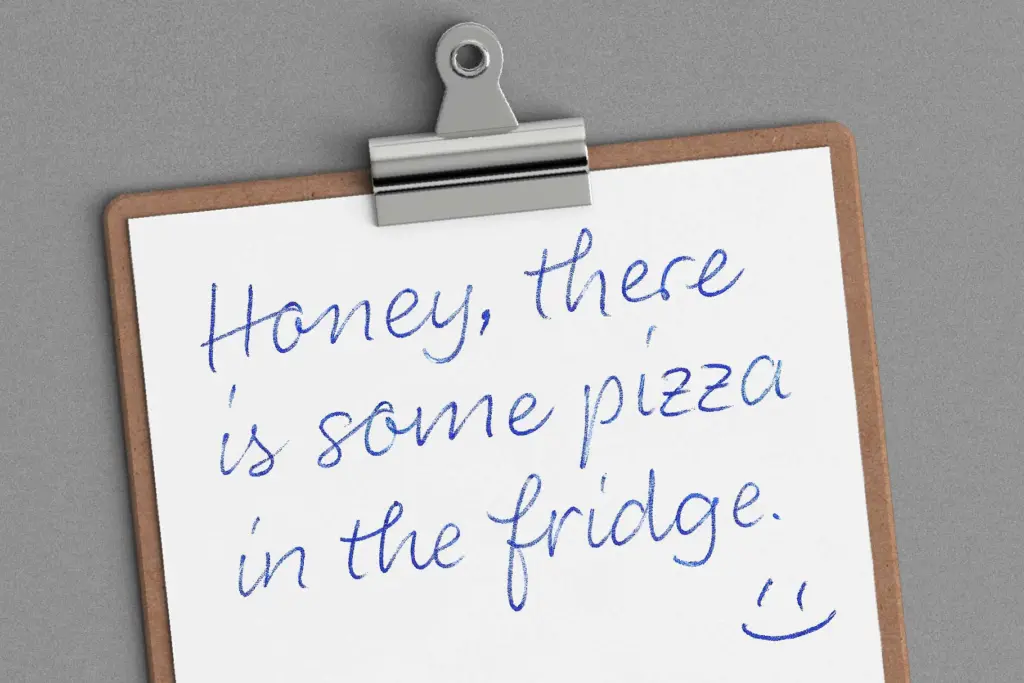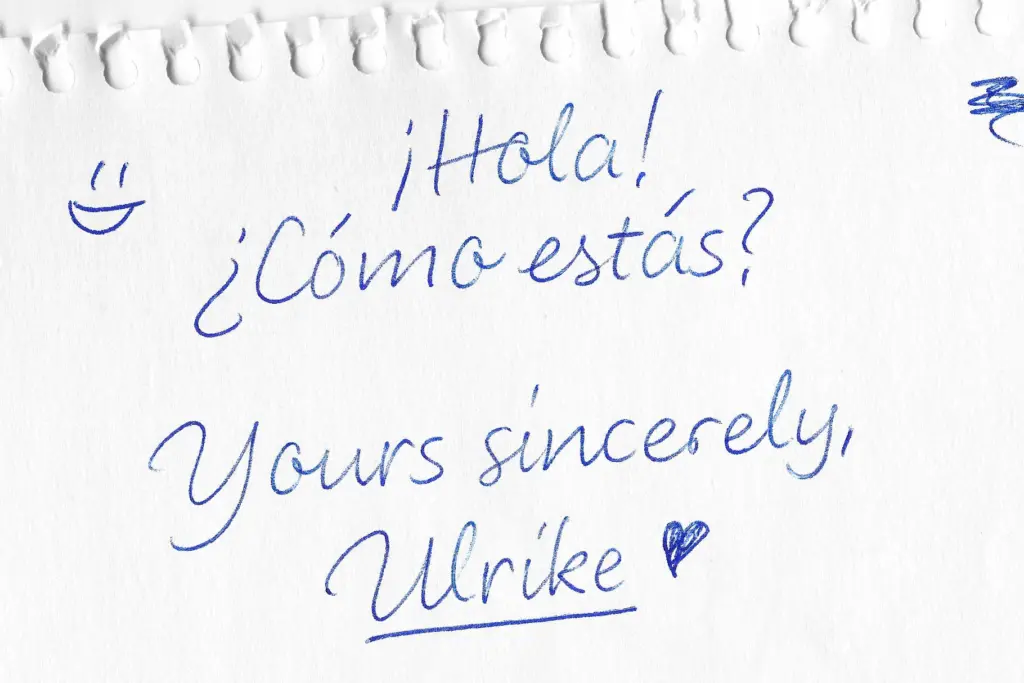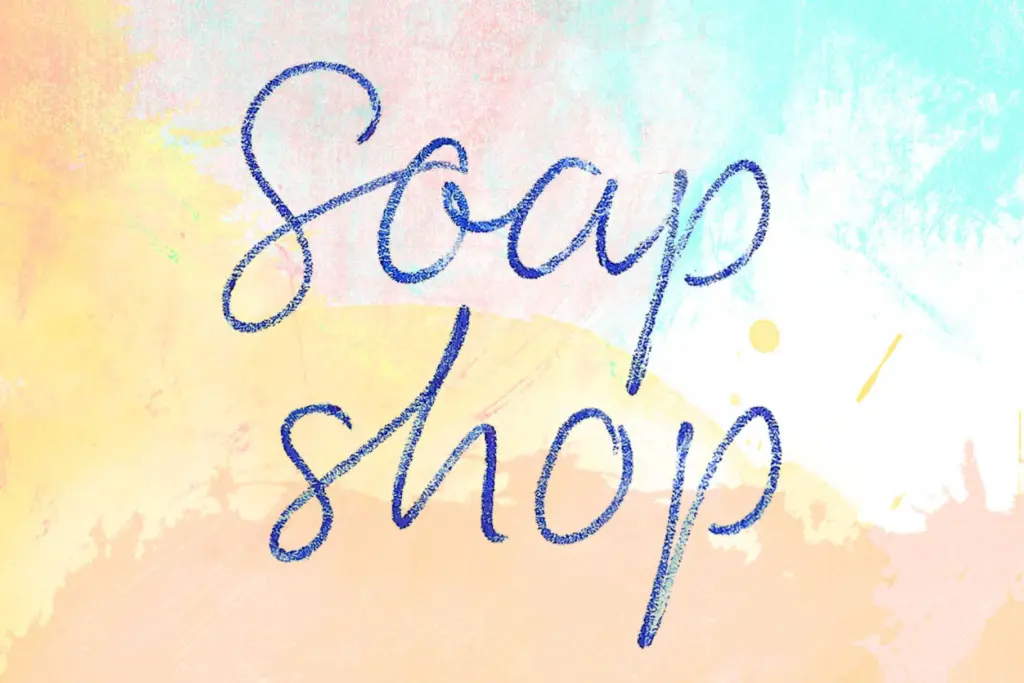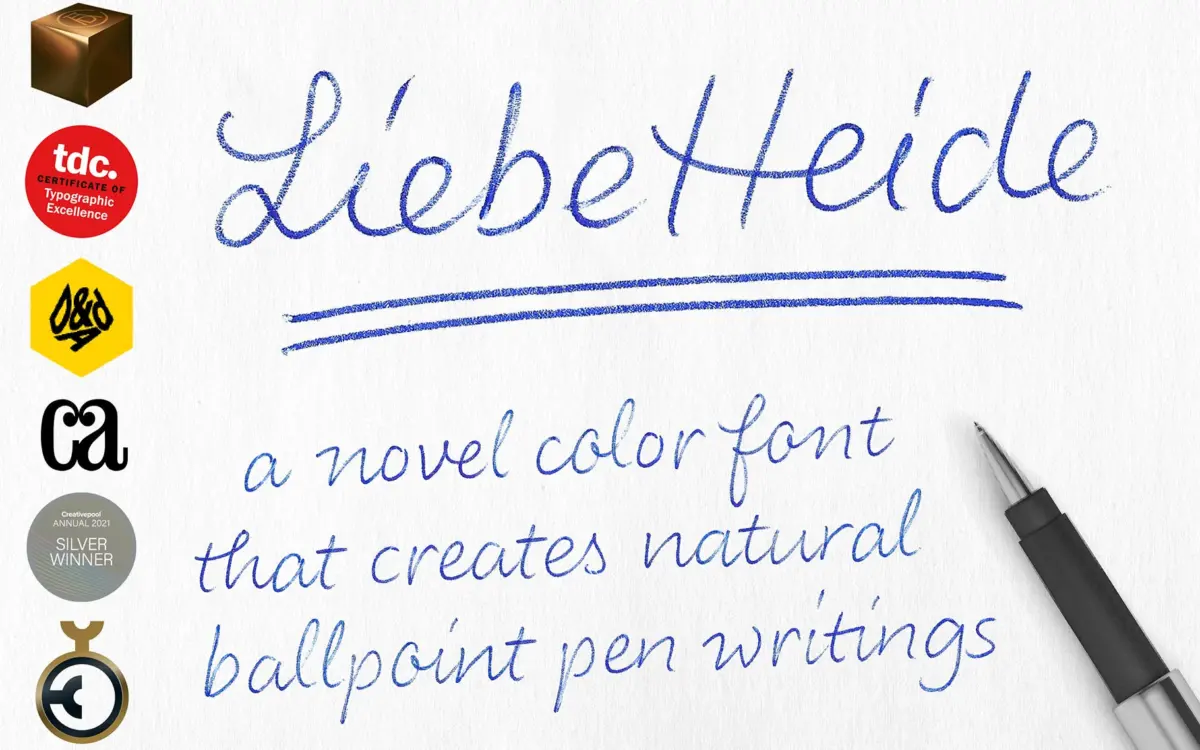
LiebeHeide is not drawn in the usual sense — it is scanned. The letterforms come from high-resolution digitized ballpoint pen lettering, and that origin shows in every stroke. You get the slight pressure changes, the faint texture of ink meeting paper, the small inconsistencies that no vector script convincingly fakes. It reads as handwriting because it is, more or less, a photograph of handwriting.
This is a color font built on bitmap images rather than outlines, which is a different animal from the OpenType-SVG color fonts most designers are used to. It changes what you can and can’t do with it, and that trade-off runs through the whole review.
The glyph count is generous — close to 500 — and a lot of that budget goes into alternate letterforms and ligatures designed to break up repetition, which matters enormously in a script meant to pass as real handwriting. Doodles, underlines (single and double), strikethroughs, and self-assembling symbols round it out: type <3 and get a heart, :-) becomes a smiley, arrow combinations resolve into actual arrows. It's a genuinely deep set for a handwriting font, and the automatic assembly means you don't have to hunt through a glyph panel to find them.
The catch is the bitmap construction. Colour cannot be changed inside a text editor — you’re locked to whatever was baked into the image, and any recolouring has to happen afterward in Photoshop. Scalability is limited too: past roughly 5cm x-height the letters start to blur, which rules out large-format use outright. And support is narrow — Adobe Creative Cloud apps and native Mac OS software only, not Creative Suite, and nothing on the Windows or web side that isn’t explicitly compatible. If your workflow lives in a browser-based tool or an older Adobe version, this font simply won’t render as intended. Language coverage is Latin, Western European and Central European, which is fine for most European-market work but not global.
This is a font for small, intimate, print-adjacent jobs: greeting cards, invitations, packaging copy, social graphics where a message needs to look like it was actually written by hand rather than typeset to resemble one. The self-assembling doodles and symbols make it fast to add charm to a layout without importing separate illustration assets. It works best set against a light or white background, per the designer’s own guidance — on darker backgrounds you’re stuck fiddling with a Darken layer effect, and it never quite convinces the way it does on paper-white.
What it isn’t suited for is anything that needs the mark to scale big — hero headlines, signage, large posters — or anything running through a design pipeline outside Adobe CC and macOS-native apps. Treat it as a texture and mood tool for close-up, screen-or-print-at-modest-size work, not as a flexible display typeface you can drop anywhere. Within that narrow lane, it does its one job with more conviction than most vector scripts manage.
- Ballpoint-pen texture reads as genuinely handwritten rather than script-font-fake
- Nearly 500 glyphs with self-assembling symbols like hearts and smileys speed up layout work
- Extensive alternates and ligatures break up repetition across longer handwritten passages
- Blurs past roughly 5cm x-height, ruling out large-format or display use
- Only works in Adobe Creative Cloud apps and native Mac OS software, not Creative Suite or most other tools
LiebeHeide delivers a genuinely convincing handwritten texture thanks to its bitmap, scanned-pen construction, with a deep set of ligatures and self-assembling doodles to back it up. But the bitmap format caps its scalability and locks it to a narrow band of software, so it suits small, intimate print and screen work far better than anything ambitious in scale or reach.